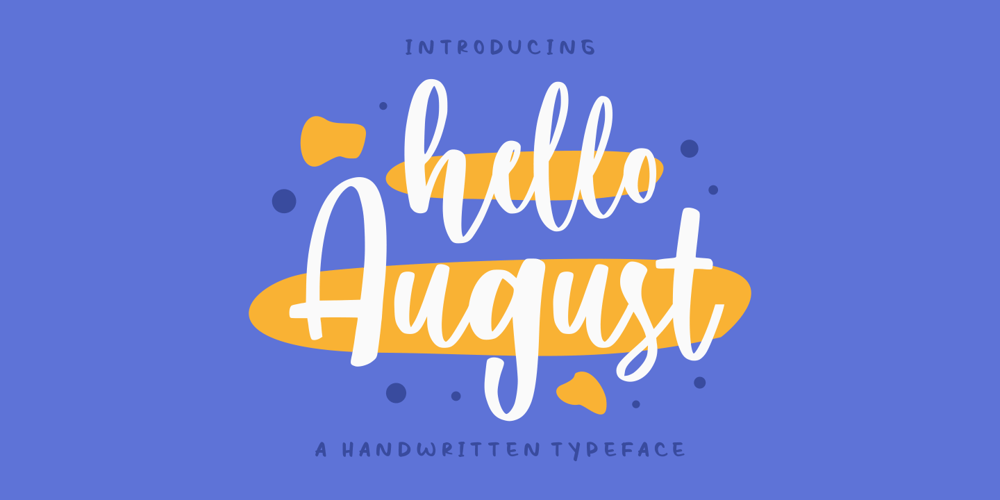
Hello August
Hello August font
Hello August Font Family was designed by Good Java and published by Good Java Studio. Hello August contains 1 styles and family package options. Introducing Hello August a playfully script font make from handlettering ideas in typeface. This font includes full of Alphabetical glyphs, Numerals, and punctuation. This is so perfect for invitations, monograms, wedding, fashion, branding, label, handlettering or logotype.